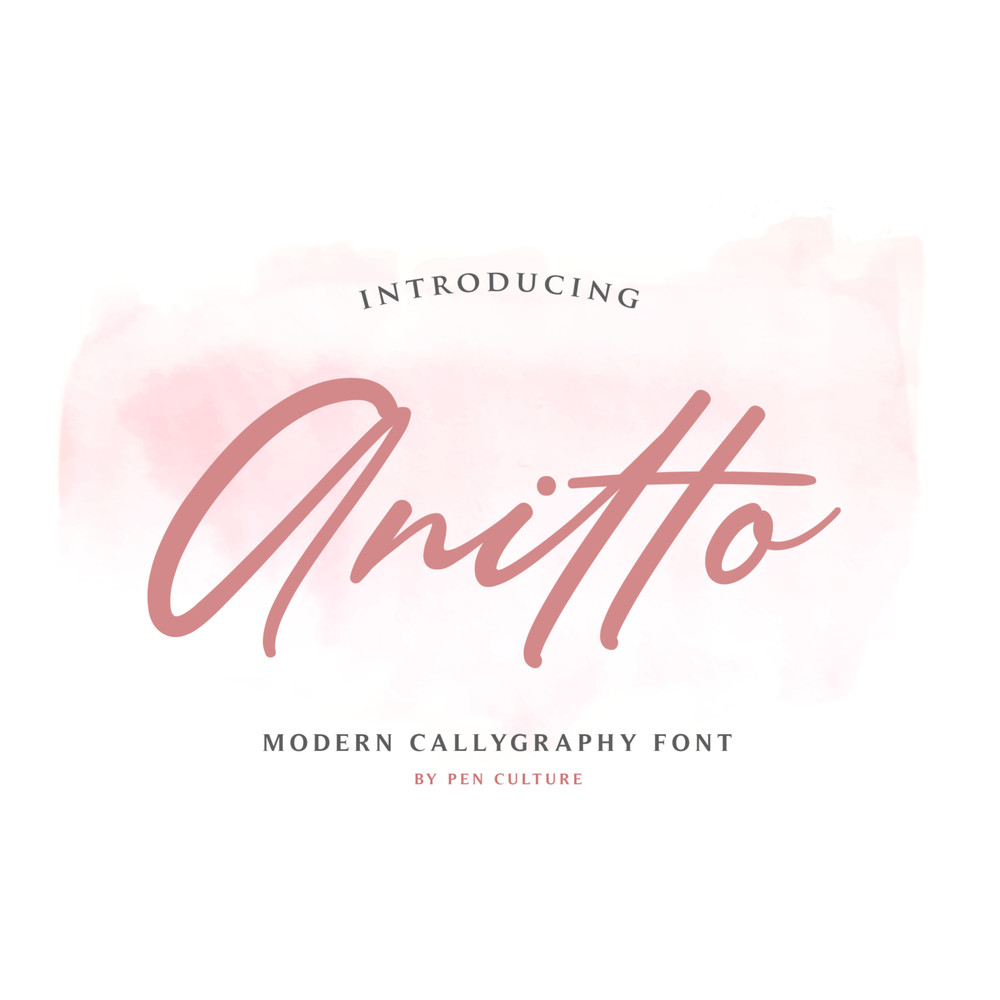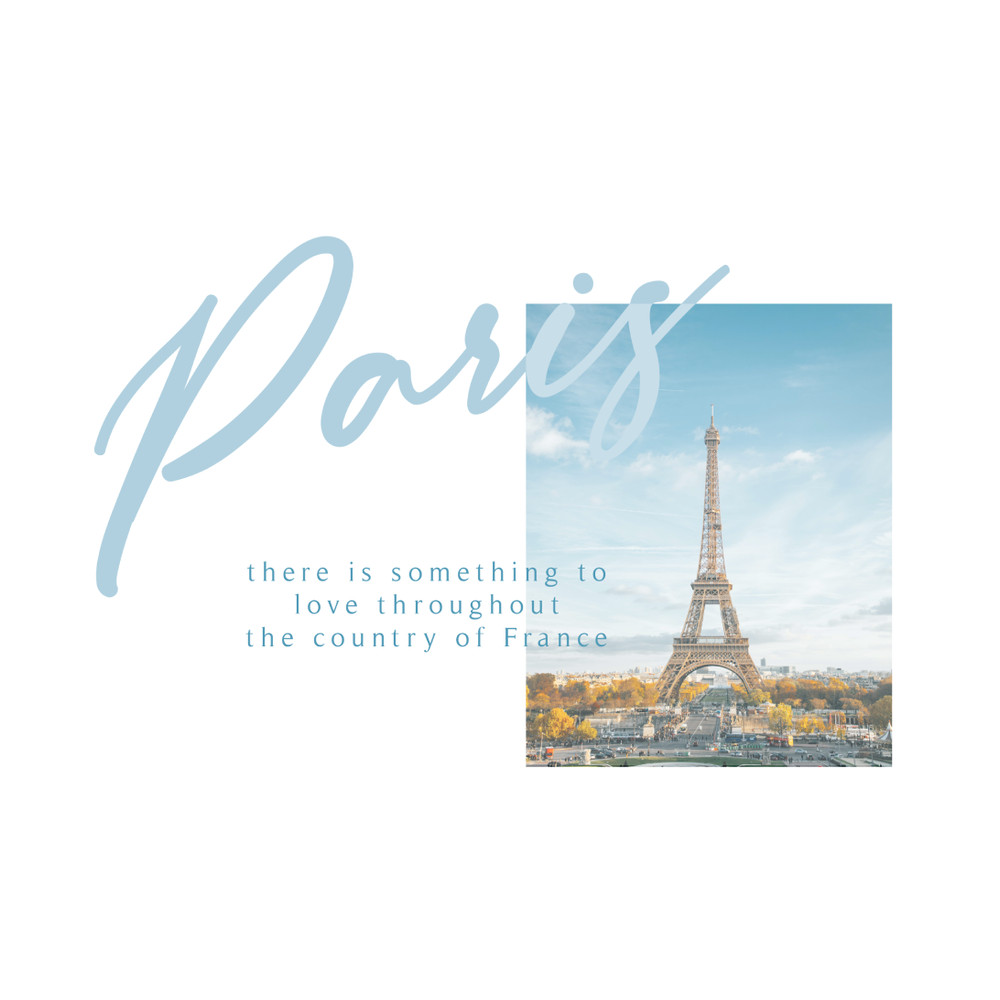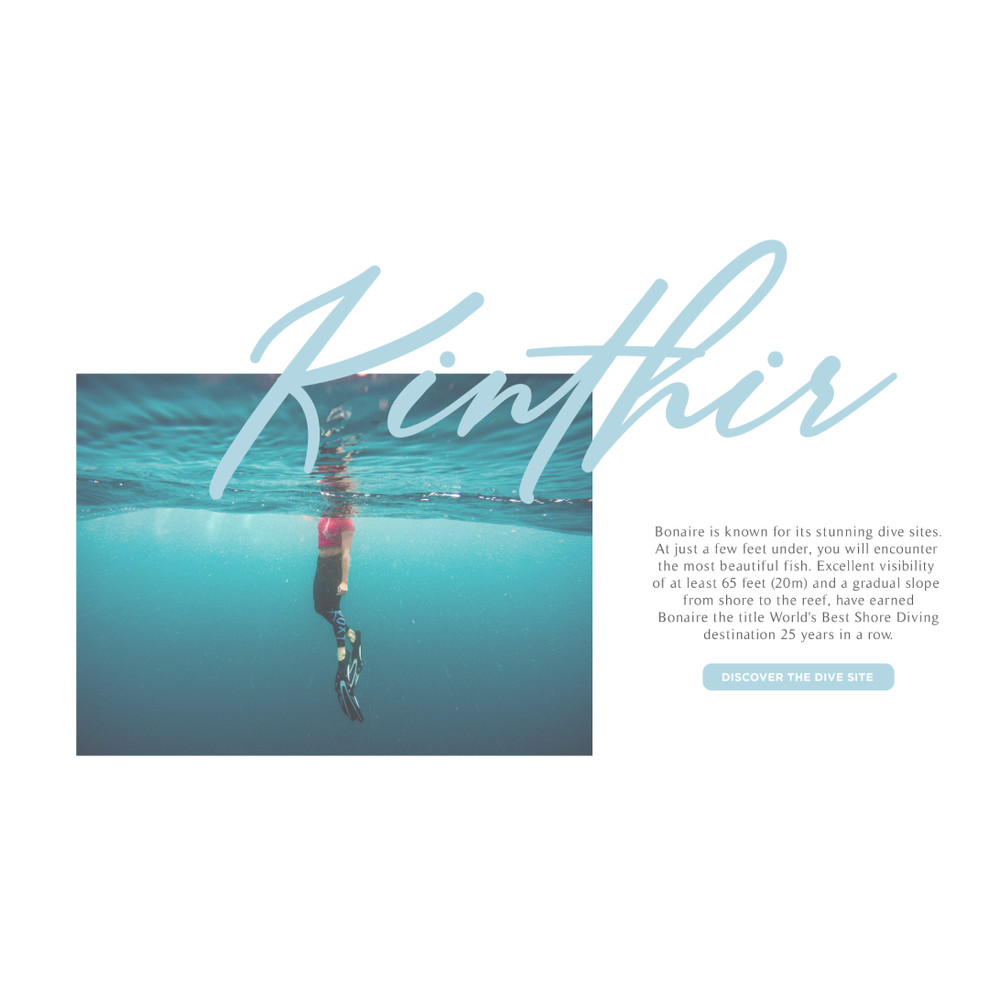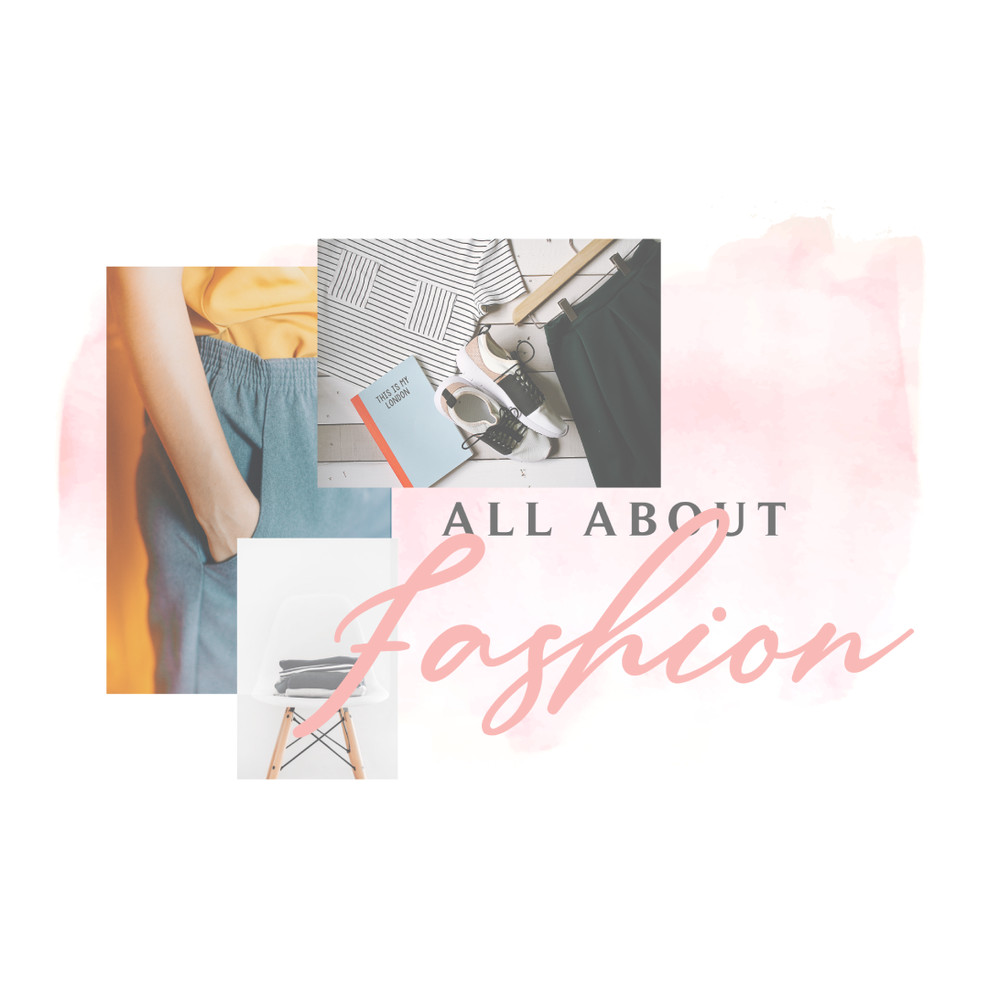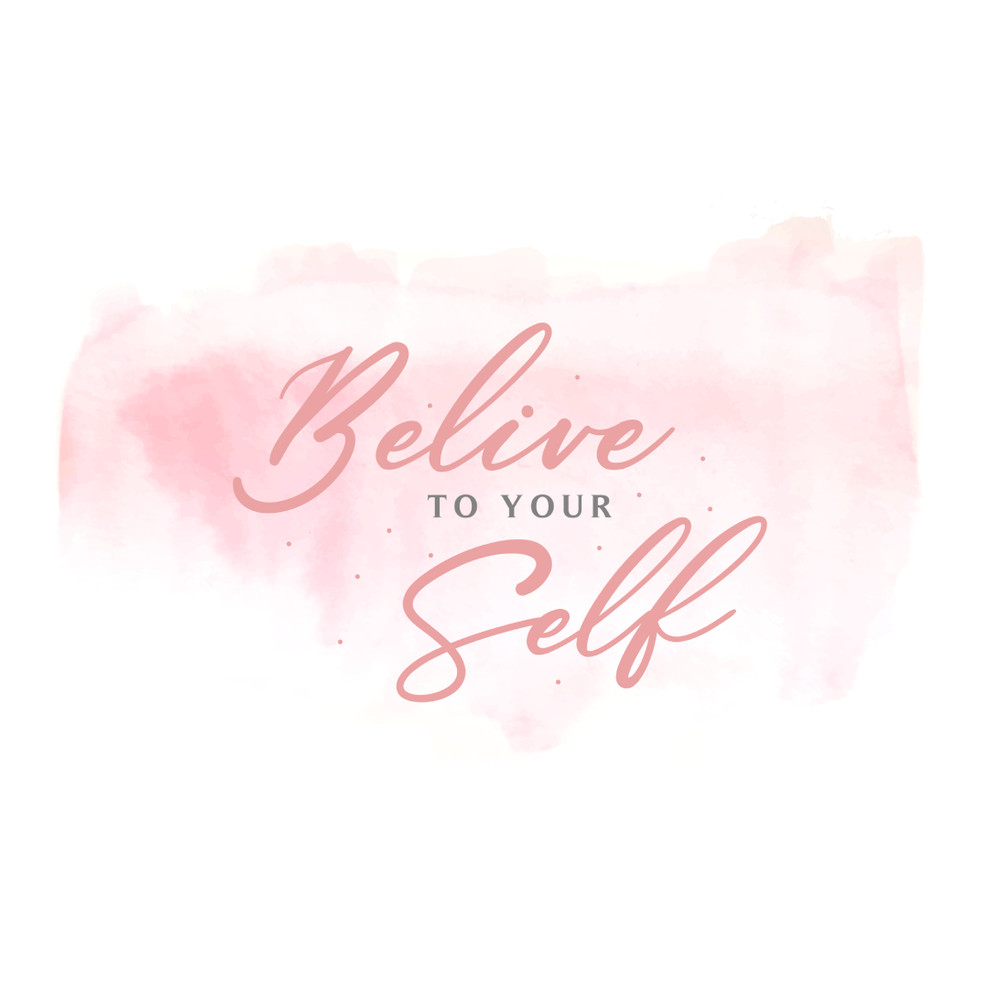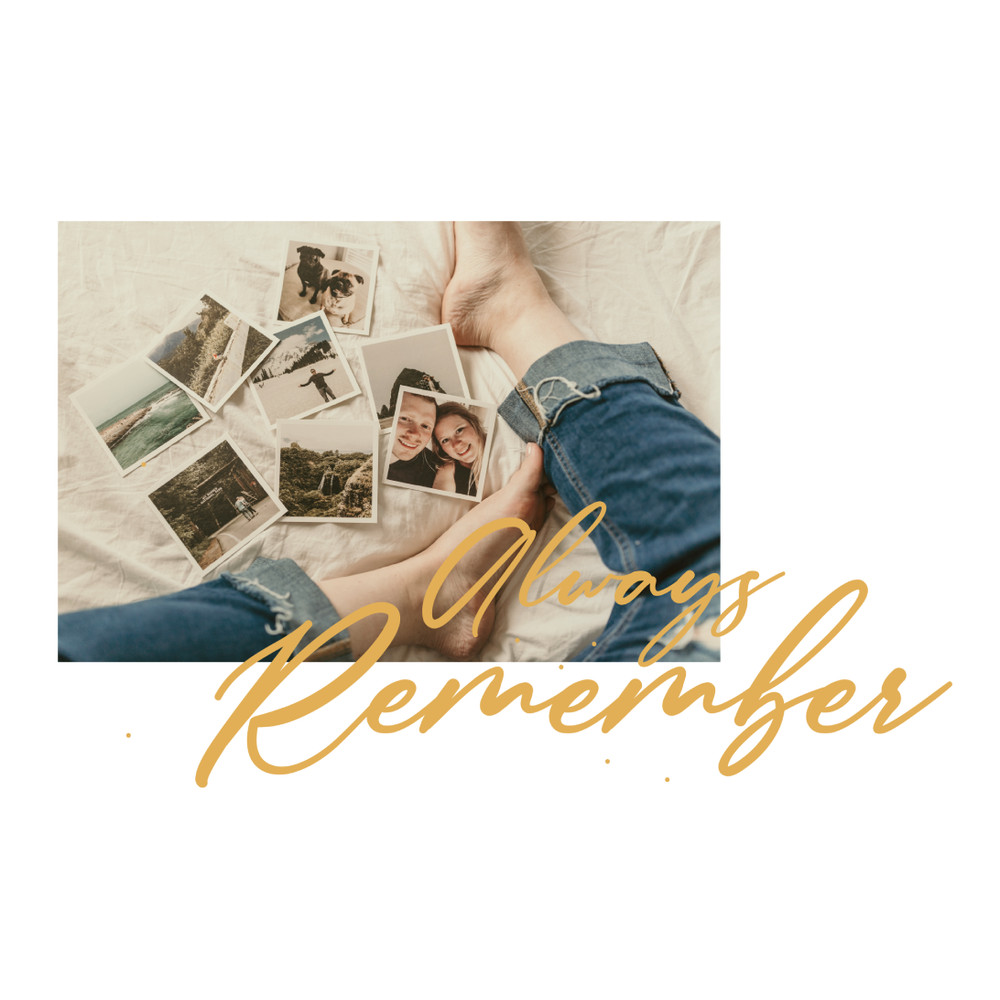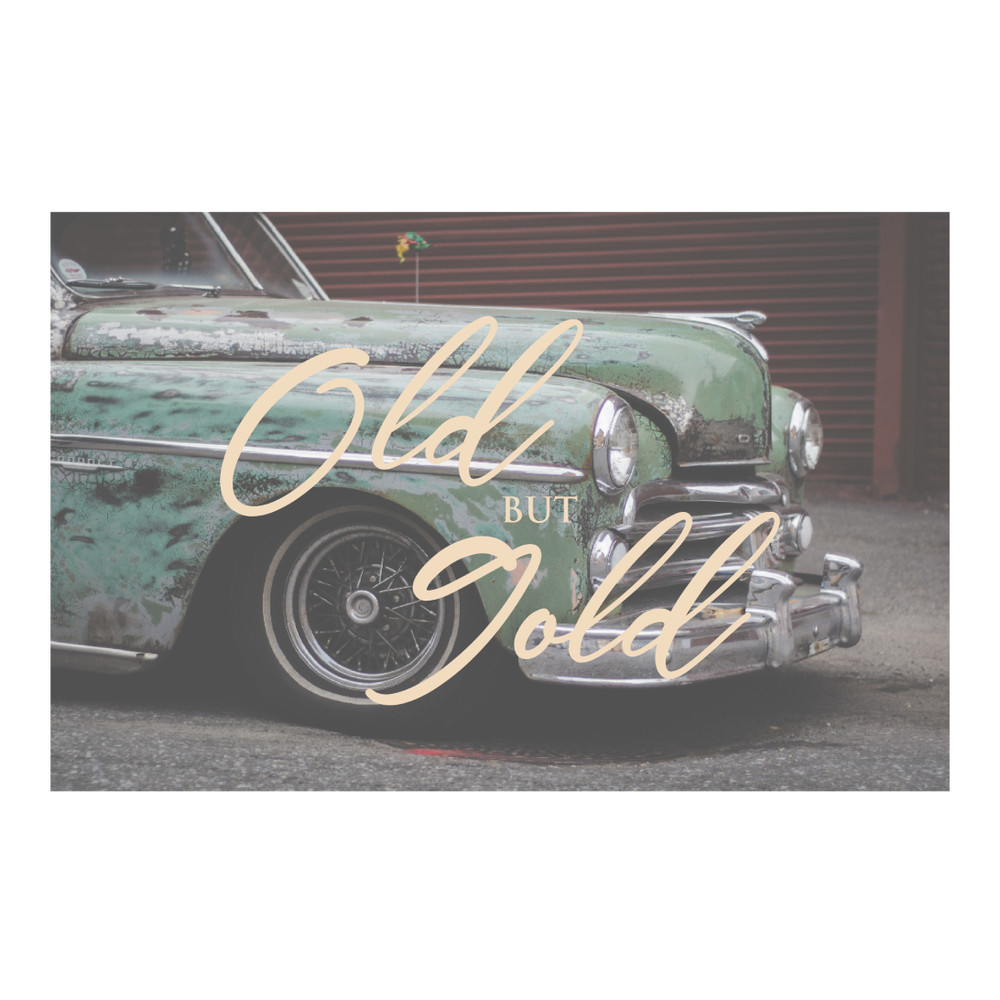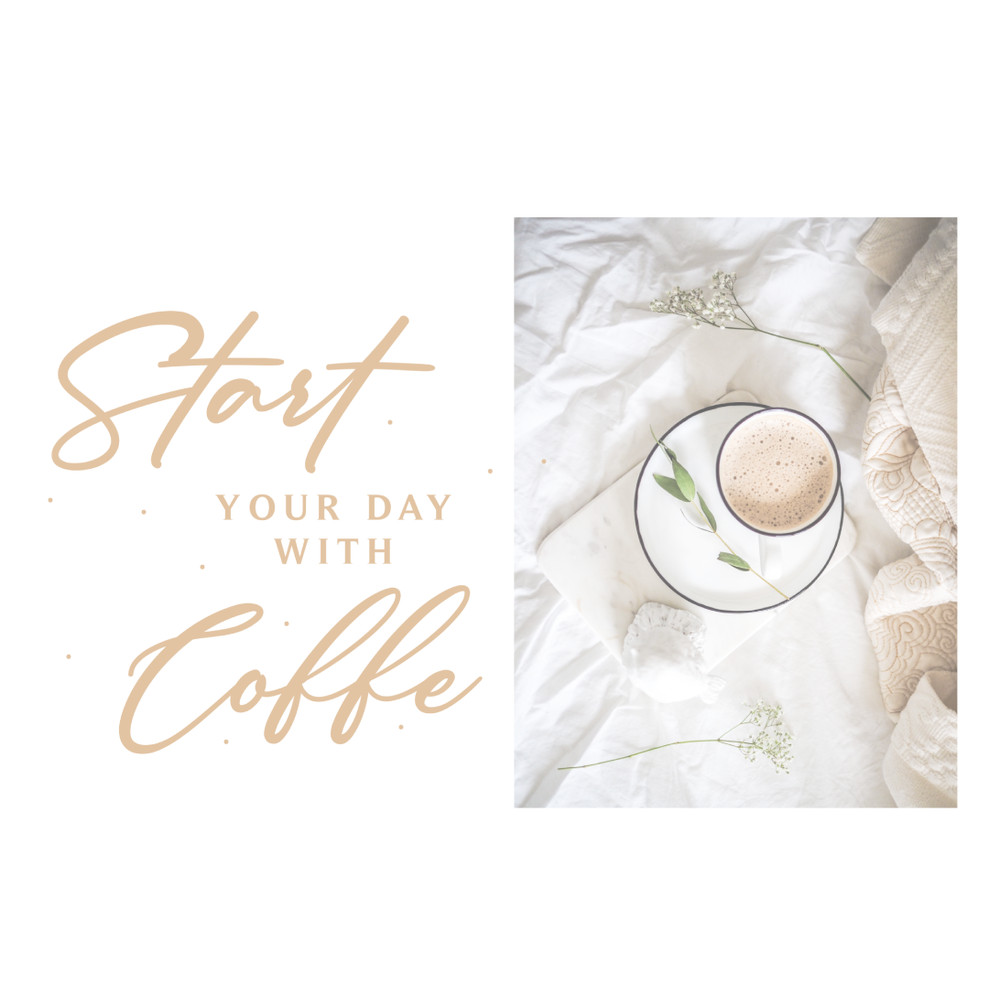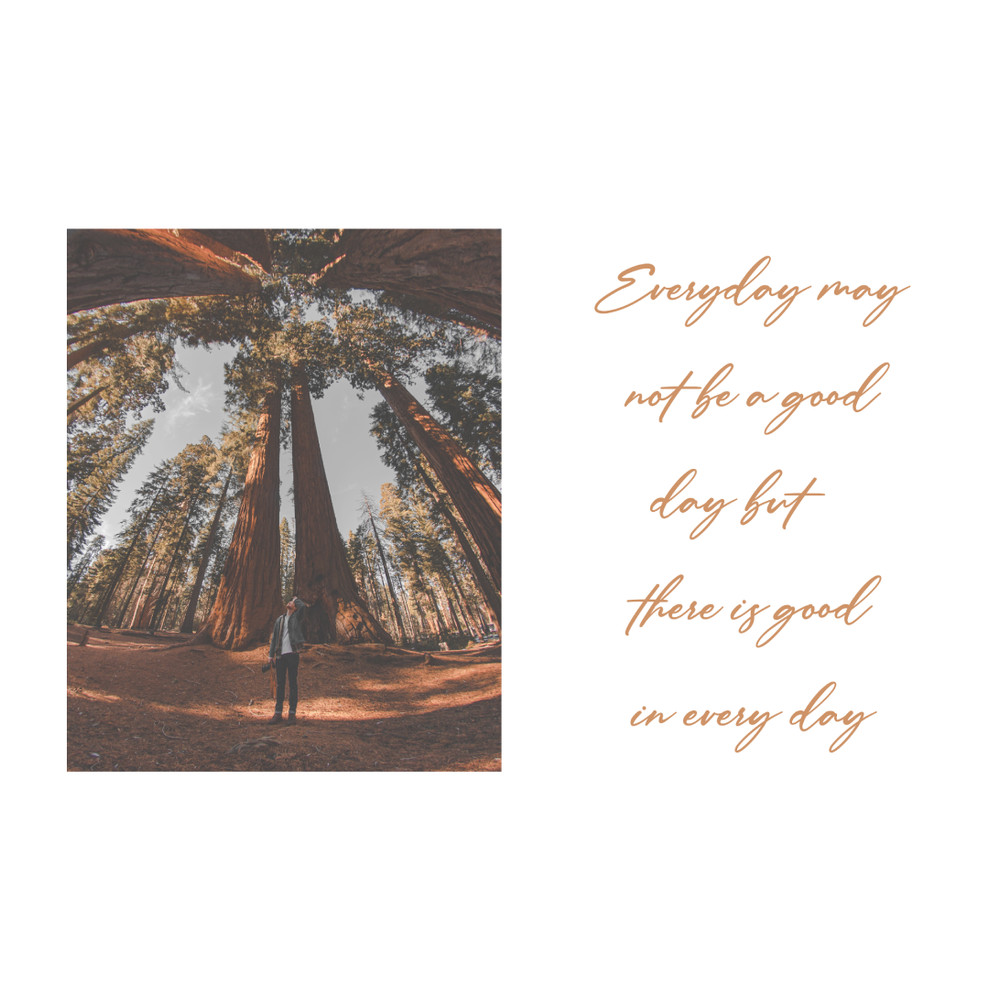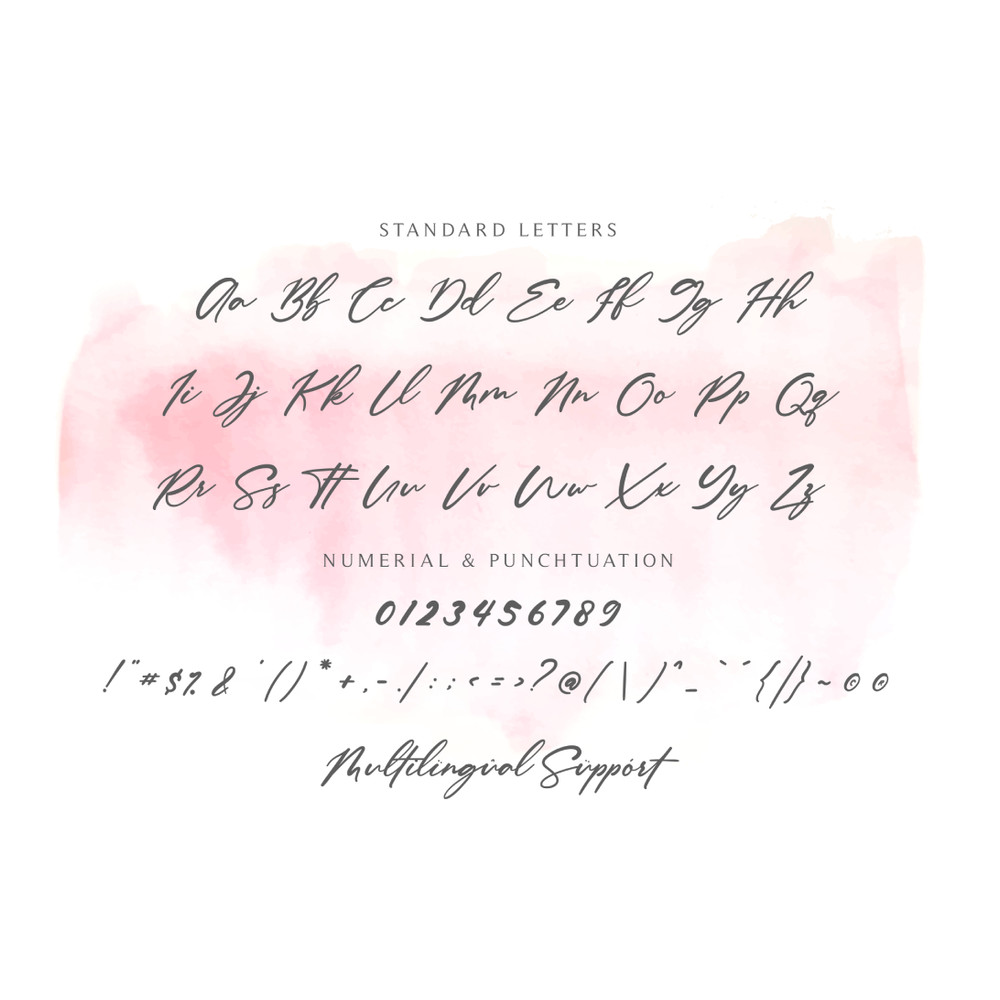
Anitto Calligraphy Font inspired by the beauty of Sunday morning in a village. Anitto Calligraphy Font font has smooth and beautiful curves, so would be perfect for all types
– The Great Sunday includes capital and lowercase letters
– 72 Ligatures: aa ab af ah ak al at all att bb cc ch cl ct dd eb ef ek el et ell ett ff gg hh ib if ih ii ik il it ill itt jj kk ll mm mr nn nt ob of oh ok ol oo ot oll ott pp qq rr rt ss st th tt ub uf uh uk ul ut ull utt vv ww xx yy
– Punctuation: ÀÁÂÃÄÅÆÇÈÉÊËÌÍÎÏÐÑÒÓÔÕÖØÙÚÛÜÝßàáâãäåæçèéêëìíîïðñòóôõöøùúûüýÿ
– Numbers + punctuation
– Foreign language support